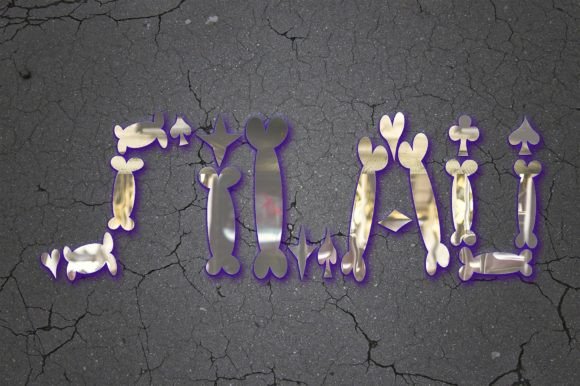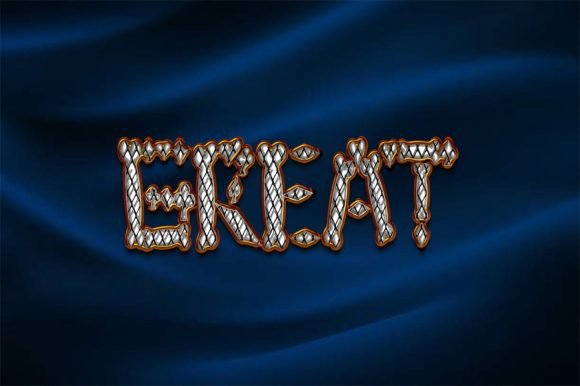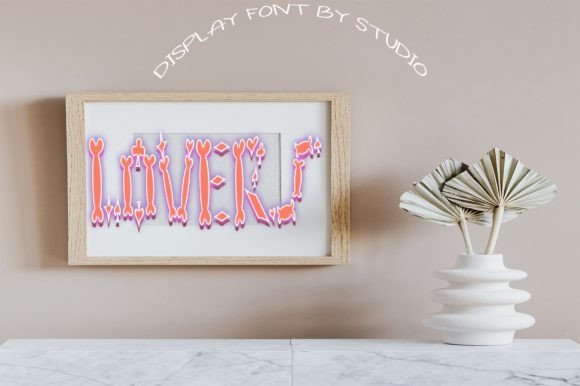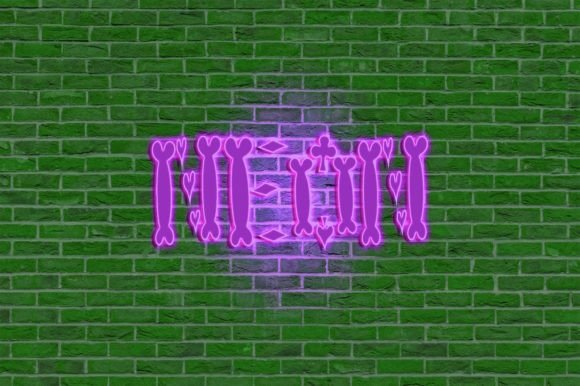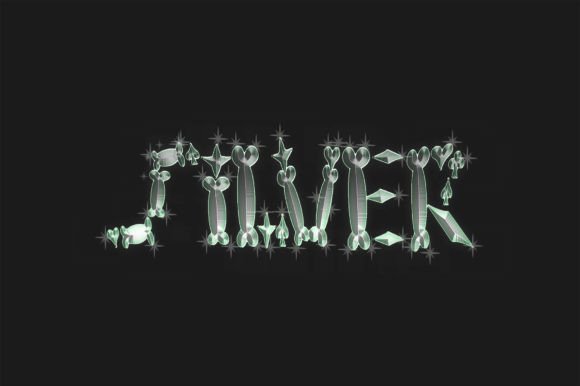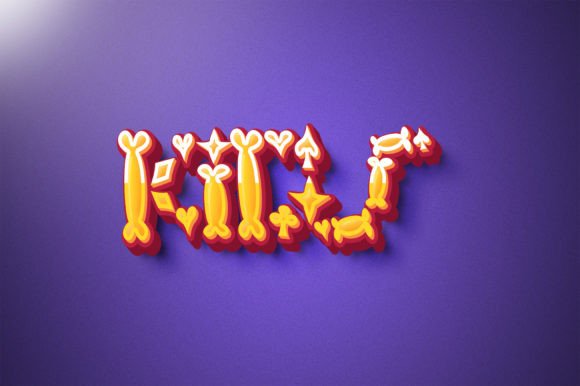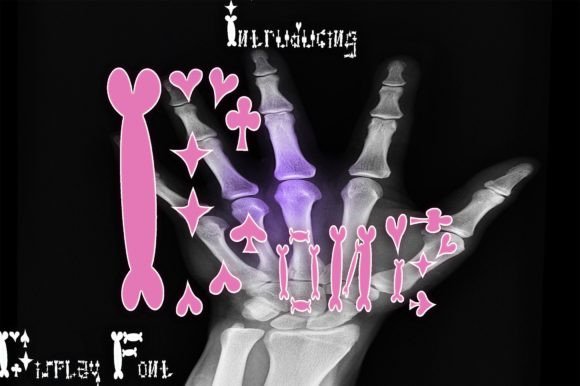
Bone Font: Add a Touch of Whimsy and Mystery to Your Designs
Are you tired of using the same old fonts in your designs? Do you want to add a touch of magic and mystery to your projects? Look no further than Bone Font, a quirky decorative font made from bones and playing card symbols. This unique font is sure to bring a little excitement and personality to your designs, whether you’re a designer, crafter, or DIY enthusiast.
What is Bone Font?
Bone Font is a decorative font that features a unique and quirky design. Instead of traditional letters, this font uses bones and playing card symbols to create a truly one-of-a-kind look. The font is perfect for designers and crafters who want to add a touch of whimsy and personality to their projects. Whether you’re creating a logo, a poster, or a handmade craft, Bone Font is sure to make your design stand out.
Features of Bone Font
So, what makes Bone Font so special? Here are just a few of its key features:
- Unique Design: Bone Font features a unique design made up of bones and playing card symbols. This gives it a quirky and eye-catching look that’s sure to turn heads.
- Decorative Style: This font is perfect for decorative projects, such as posters, logos, and handmade crafts. It’s also great for adding a touch of personality to your digital designs.
- Versatile: Bone Font can be used for a wide range of projects, from design and crafting to scrapbooking and DIY projects.
Uses for Bone Font
So, what can you use Bone Font for? The possibilities are endless! Here are a few ideas to get you started:
- Design Projects: Use Bone Font to add a touch of personality to your design projects, such as logos, posters, and brochures.
- Crafting: Bone Font is perfect for crafters who want to add a unique touch to their projects, such as handmade cards, scrapbooking, and DIY crafts.
- Scrapbooking: Add a touch of whimsy to your scrapbooking projects with Bone Font. It’s perfect for journaling, titles, and other creative elements.
- Digital Designs: Bone Font can also be used for digital designs, such as social media graphics, blog posts, and website headers.
Tips for Using Bone Font
Here are a few tips for using Bone Font in your projects:
- Use it Sparingly: Because of its unique design, Bone Font can be overwhelming if used too much. Use it sparingly to add a touch of personality to your projects.
- Pair it with Other Fonts: Bone Font looks great when paired with other fonts. Try pairing it with a simple font to create a striking contrast.
- Experiment with Colors: Bone Font looks great in a variety of colors. Experiment with different colors to find the one that works best for your project.
Bone Font is a unique and quirky decorative font that’s perfect for designers and crafters who want to add a touch of magic and mystery to their projects. With its bones and playing card symbols, this font is sure to bring a little excitement and personality to your designs. Whether you’re creating a logo, a poster, or a handmade craft, Bone Font is sure to make your design stand out. So why not give it a try and see what kind of creative projects you can come up with?